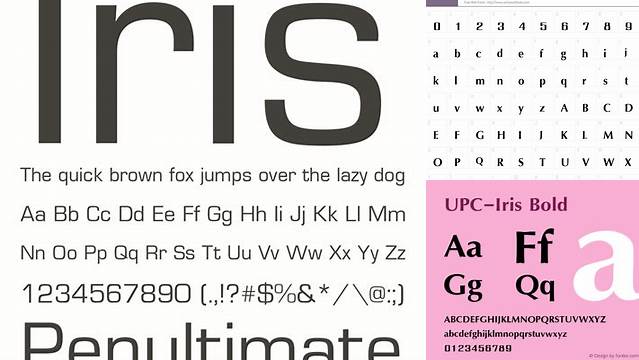
Let's dive into the world of fonts, specifically the Iris Bold Font. In this guide, we'll explore everything you need to know about this fantastic typeface and how you can snag it for free. Whether you're a seasoned designer or just starting, understanding the nuances of a font like Iris Bold can significantly elevate your projects. So, let's get started, guys!
1. What is Iris Bold Font?
Iris Bold Font is a typeface known for its strong, clear lines and modern aesthetic. It's a versatile font that works well in various design contexts, from headlines to body text, and even branding materials. Its bold weight ensures readability and impact, making it a favorite among designers who want to make a statement. The font family often includes various weights and styles, providing flexibility for different design needs. Iris Bold's design incorporates elements of both classic and contemporary fonts, creating a unique and timeless appeal. Designers appreciate its clean appearance, which allows it to seamlessly integrate into diverse design projects. Whether you're working on a website, a poster, or a logo, Iris Bold can add a touch of sophistication and clarity. Its balanced letterforms and consistent spacing contribute to a polished and professional look, ensuring your message is conveyed effectively. The font's distinct character sets it apart from generic typefaces, making it a valuable asset in any designer's toolkit. With its strong visual presence and versatility, Iris Bold continues to be a popular choice for designers seeking a reliable and stylish font. Understanding its characteristics and applications can significantly enhance your design capabilities and help you create visually stunning and impactful projects.
2. Key Features of Iris Bold
The key features of Iris Bold Font make it stand out from the crowd. First off, its boldness ensures readability even at smaller sizes. The clean lines and modern design give it a professional look. Iris Bold often includes a full character set, supporting various languages and special characters, which is super handy for international projects. Its versatility means you can use it for headlines, body text, logos, and more. The spacing between letters is carefully designed for optimal readability, reducing eye strain. Additionally, many versions of Iris Bold come with different weights and styles, such as italic and light, giving you even more flexibility. The font's contemporary aesthetic makes it suitable for a wide range of design styles, from minimalist to more elaborate designs. Its strong visual impact helps to draw attention to key messages, making it an excellent choice for marketing materials. Iris Bold's timeless appeal ensures that it remains relevant and stylish, avoiding the pitfalls of trendy but short-lived typefaces. The font's consistency across different platforms and devices guarantees a uniform look, maintaining brand integrity. Overall, its combination of readability, versatility, and aesthetic appeal makes Iris Bold a valuable asset for any designer looking to enhance their work.
8. Iris Bold for Headlines
Iris Bold Font is an excellent choice for headlines due to its strong and attention-grabbing appearance. The boldness of the font ensures that your headlines stand out and capture the reader's attention. Its clean lines and modern design make it suitable for a variety of headline styles, from bold and impactful to more subtle and sophisticated. When using Iris Bold for headlines, consider the overall design of your project and choose a font size that is appropriate for the context. Experiment with different font weights and styles to find the perfect balance between readability and visual appeal. You can also use Iris Bold in combination with other fonts to create a more dynamic and visually interesting headline. For example, you might use Iris Bold for the main headline and a lighter font for the subheadline. When designing headlines with Iris Bold, pay attention to the spacing between letters and lines to ensure optimal readability. Adjust the kerning and leading as needed to fine-tune the appearance of the text. Additionally, consider the color of the headline and how it contrasts with the background. Using a high-contrast color can help to make the headline stand out even more. By leveraging the power of Iris Bold for headlines, you can create compelling and effective designs that capture the reader's attention and convey your message clearly.
9. Iris Bold for Body Text
While Iris Bold Font is known for its bold appearance, it can also be used effectively for body text in certain contexts. The key is to use it sparingly and choose a font size that is comfortable to read for extended periods. When using Iris Bold for body text, consider the overall design of your project and ensure that the font complements the other elements on the page. Avoid using Iris Bold for long paragraphs of text, as its boldness can be tiring on the eyes. Instead, use it for shorter blocks of text, such as captions, callouts, or highlighted sections. You can also use Iris Bold in combination with a lighter font for the main body text to create a visual hierarchy and improve readability. When designing body text with Iris Bold, pay attention to the spacing between letters and lines to ensure optimal readability. Adjust the kerning and leading as needed to fine-tune the appearance of the text. Additionally, consider the color of the text and how it contrasts with the background. Using a high-contrast color can help to make the text stand out, but be careful not to make it too overwhelming. By using Iris Bold judiciously for body text, you can add emphasis and visual interest to your designs without sacrificing readability.
30. Future Trends in Font Technology
Font technology is constantly evolving, with new trends emerging that promise to transform the way we design and use fonts. Variable fonts, which allow for dynamic adjustments to font weight, width, and other characteristics, are gaining popularity for their flexibility and efficiency. Color fonts, which support multiple colors within a single font file, are opening up new possibilities for creative expression. Artificial intelligence (AI) is being used to automate font design and optimization, making it easier to create custom fonts. Blockchain technology is being explored as a way to protect font copyrights and ensure fair compensation for font designers. Virtual reality (VR) and augmented reality (AR) are creating new opportunities for immersive typography experiences. 3D fonts are becoming more prevalent, adding depth and dimension to designs. As technology continues to advance, we can expect to see even more innovative and exciting developments in the world of font technology.